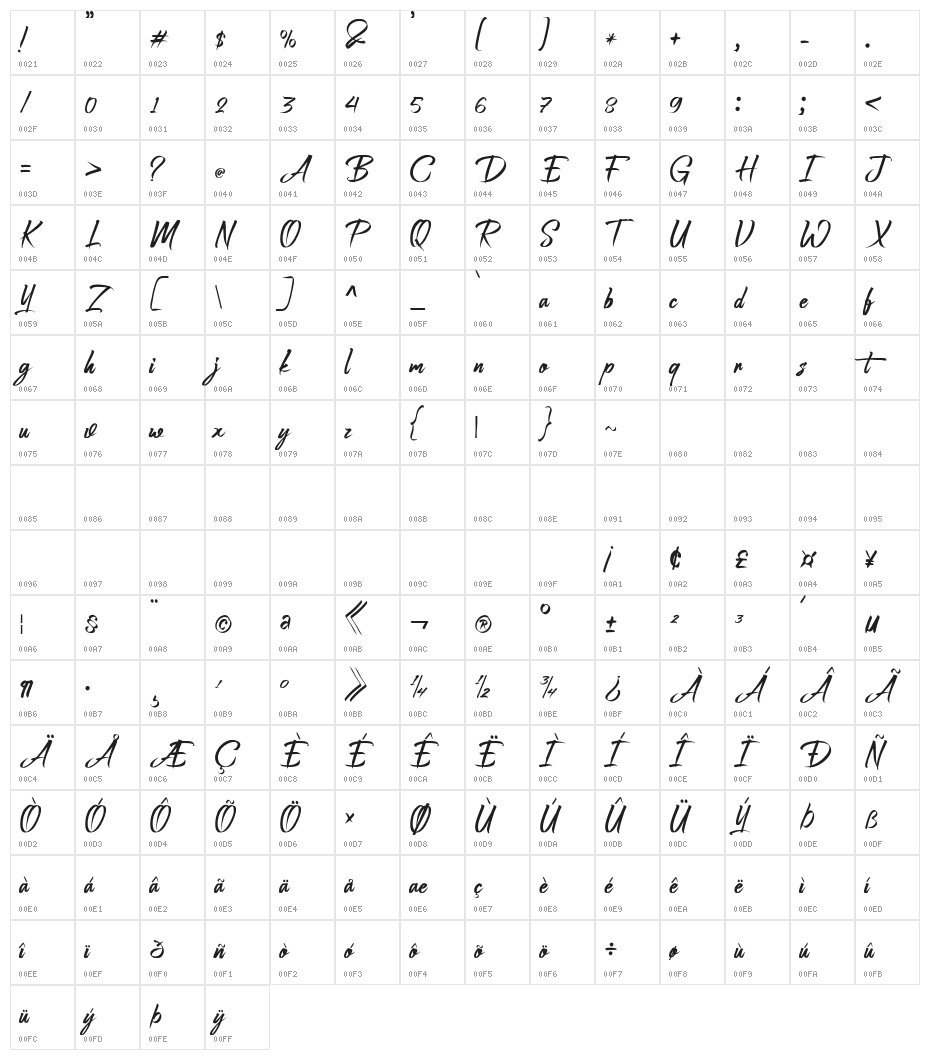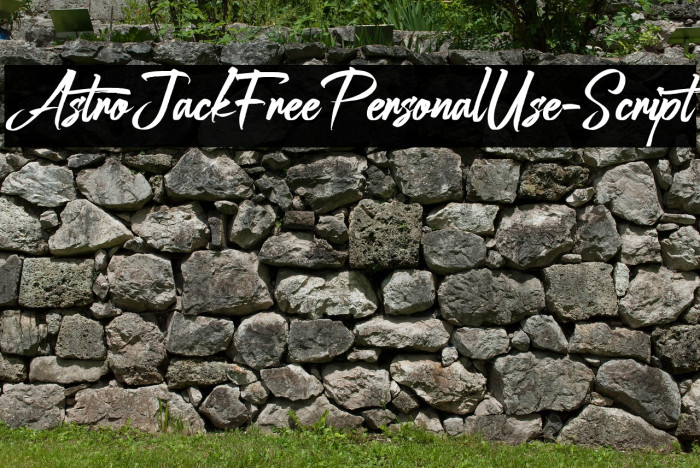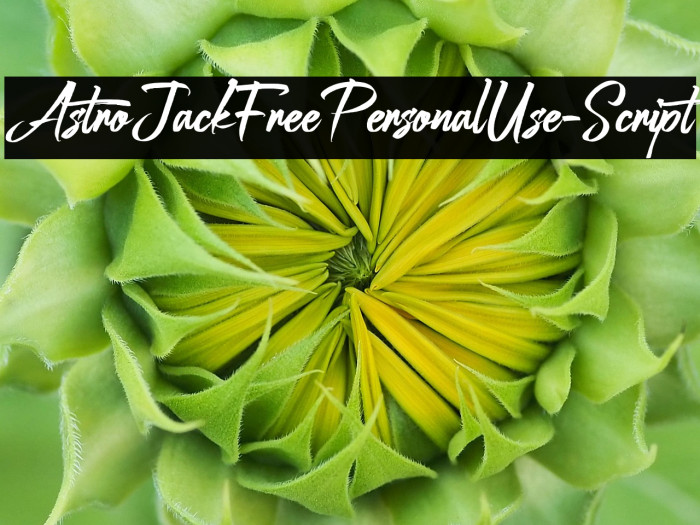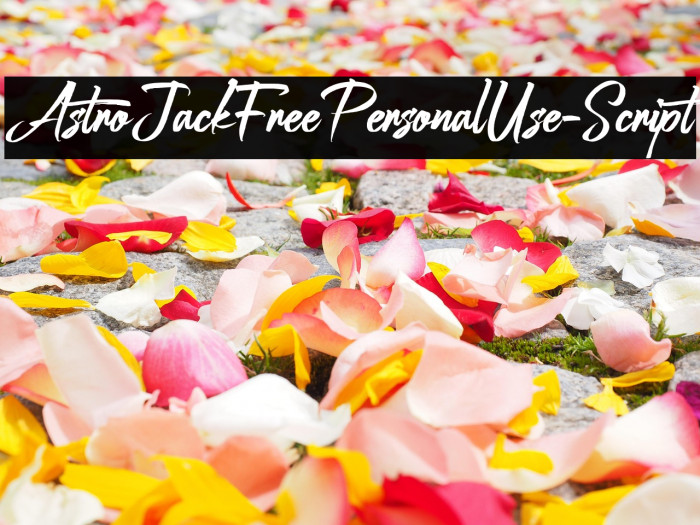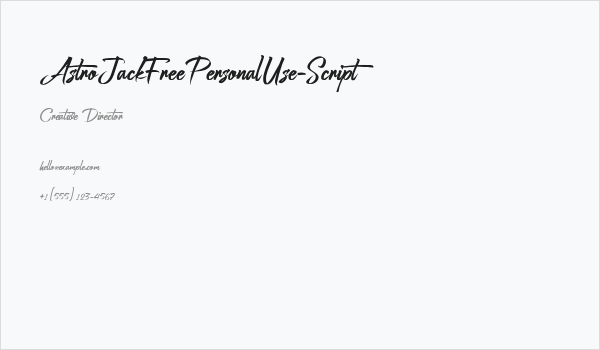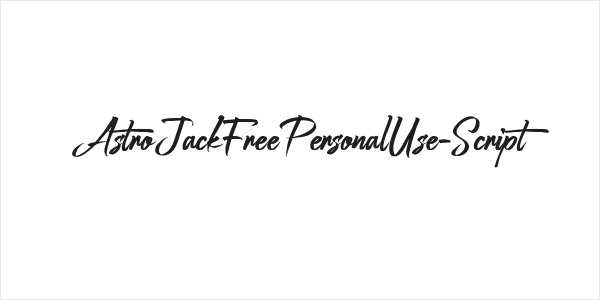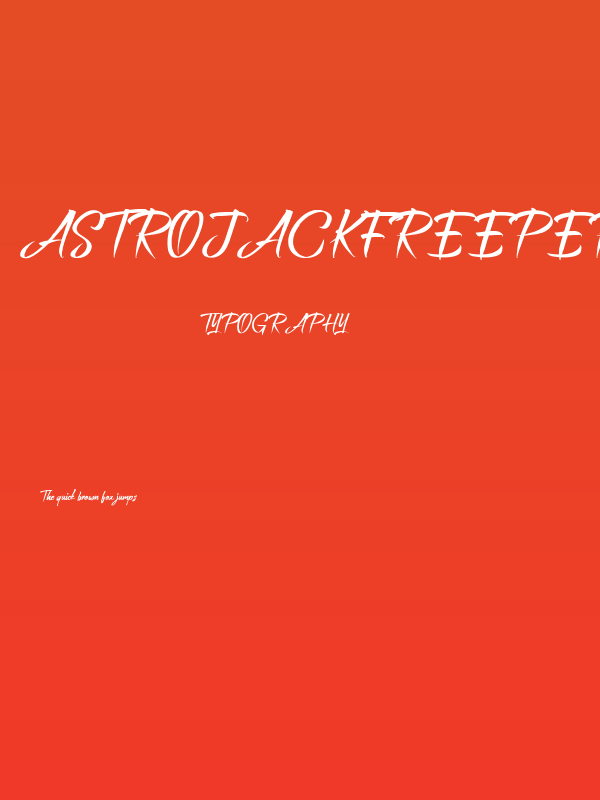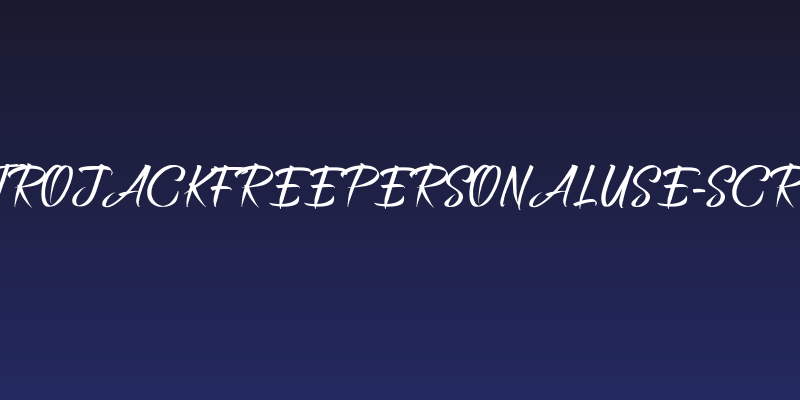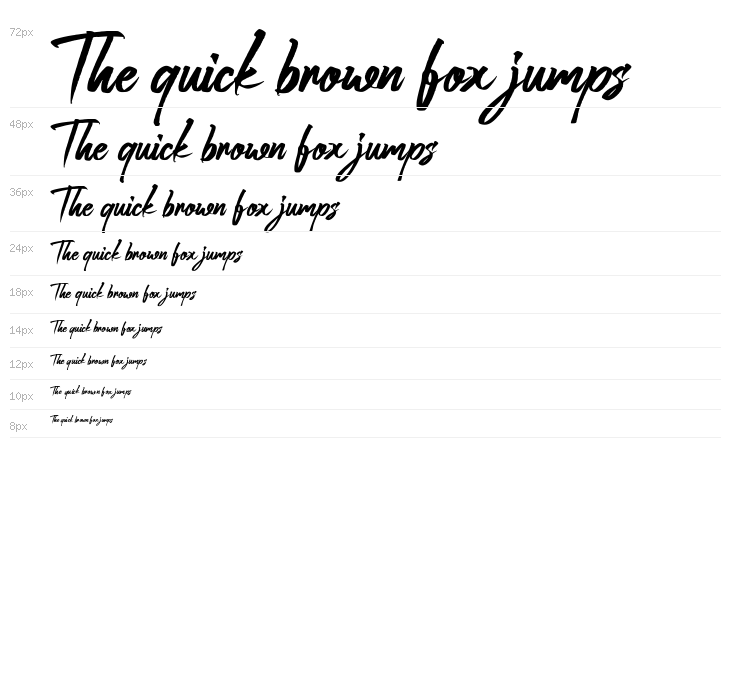
AstroJackFreePersonalUse-Script Font
AstroJackFreePersonalUse-Script Description
A dynamic and flowing script font with a handwritten style, featuring elegant curves and a casual yet sophisticated appearance.
| Use Case | Logos, headlines, decorative text. |
| Proposed Projects | Invitations, greeting cards, branding. |